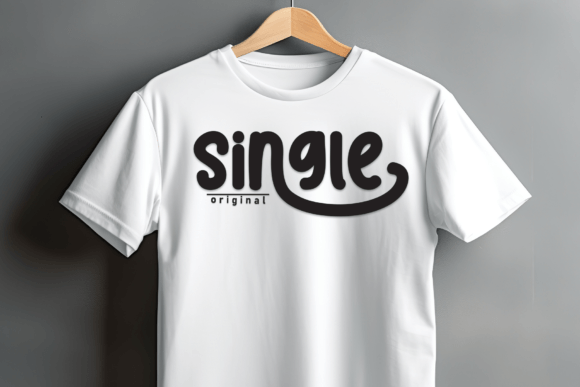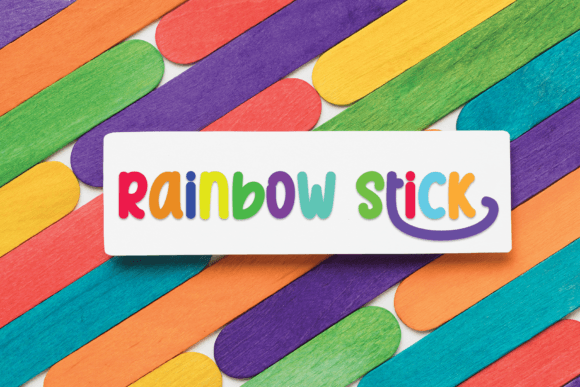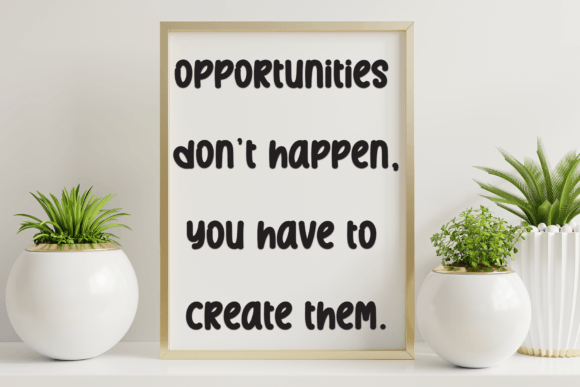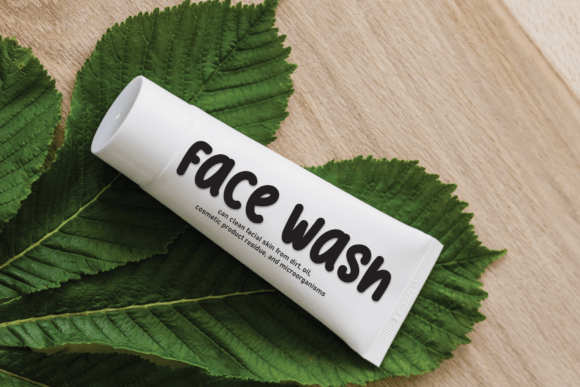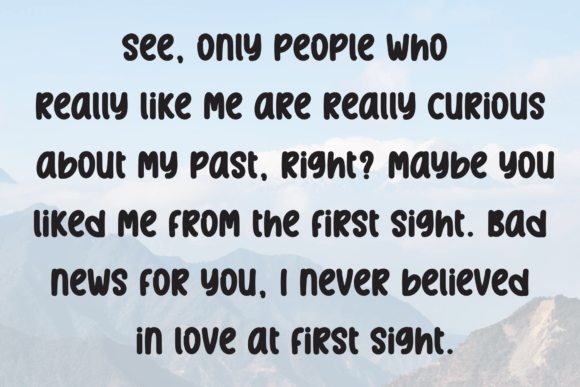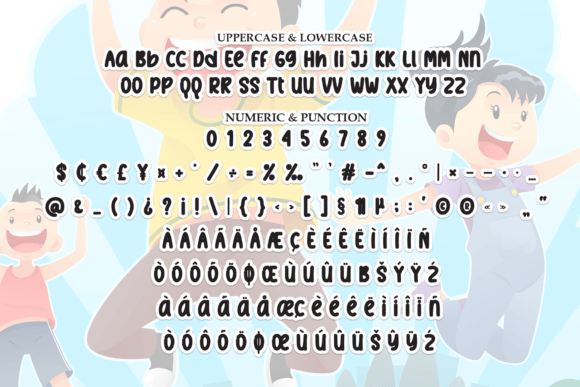
Introducing Exciting Font: Add a Sweet and Friendly Touch to Your Designs
Are you looking for a font that can add a playful and charming touch to your designs? Look no further than Exciting Font, a sweet and friendly handwritten display font that’s perfect for creating fun and engaging visual content. In this article, we’ll take a closer look at Exciting Font, its features, and how you can use it to elevate your designs.
What is Exciting Font?
Exciting Font is a beautiful handwritten display font that’s designed to bring a touch of whimsy and fun to your designs. With its cute and playful style, this font is ideal for writing wedding invitations, cards, or any other design that might need a friendly and approachable tone. Whether you’re a designer, crafter, or DIY enthusiast, Exciting Font is a great addition to your font collection.
Key Features of Exciting Font
- Handwritten style: Exciting Font has a beautiful handwritten style that’s perfect for creating personal and engaging visual content.
- Cute and fun: This font is designed to be playful and fun, making it ideal for designs that require a lighthearted touch.
- Display font: Exciting Font is a display font, which means it’s perfect for headlines, titles, and other prominent text elements.
- Versatile: This font can be used for a wide range of design projects, from wedding invitations to social media graphics.
Use Cases for Exciting Font
Exciting Font is a versatile font that can be used for a variety of design projects. Here are some use cases to get you started:
- Wedding invitations: Add a touch of whimsy and romance to your wedding invitations with Exciting Font.
- Cards and stationery: Use Exciting Font to create fun and playful cards and stationery for birthdays, holidays, and other special occasions.
- Social media graphics: Add a playful touch to your social media graphics with Exciting Font.
- DIY projects: Use Exciting Font to add a personal touch to your DIY projects, such as crafts, scrapbooking, and more.
Tips for Using Exciting Font
Here are some tips for using Exciting Font in your designs:
- Pair with other fonts: Exciting Font pairs well with other fonts, such as serif or sans-serif fonts. Experiment with different font combinations to find the perfect look for your design.
- Use for headlines: Exciting Font is perfect for headlines and titles. Use it to add a playful touch to your design.
- Experiment with colors: Exciting Font looks great in a variety of colors. Experiment with different colors to find the perfect look for your design.